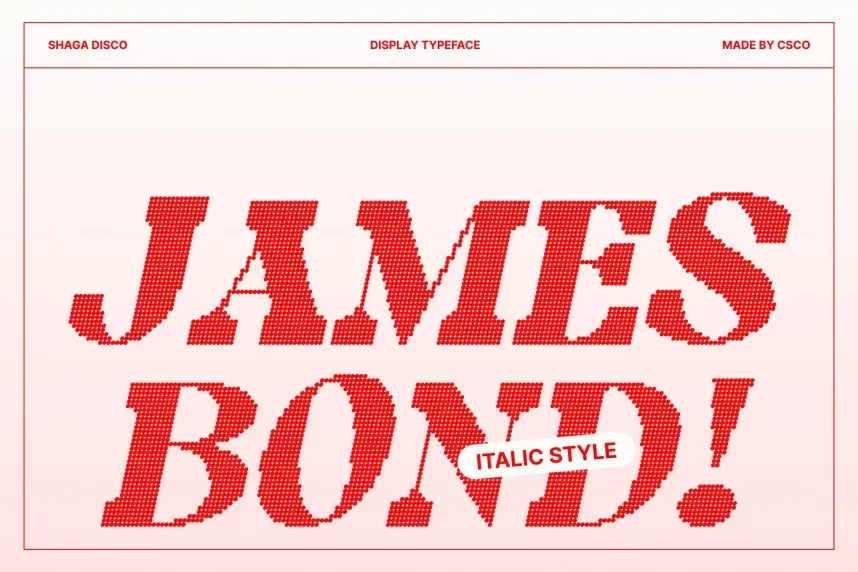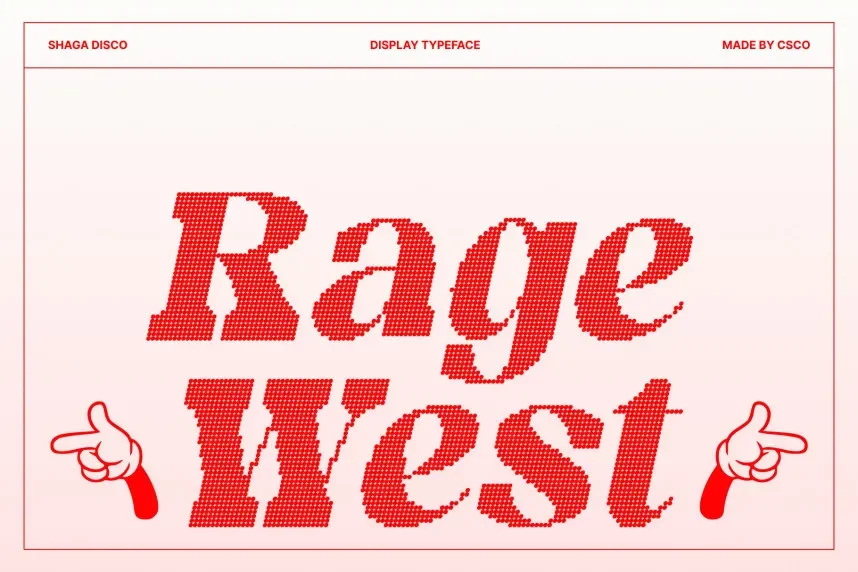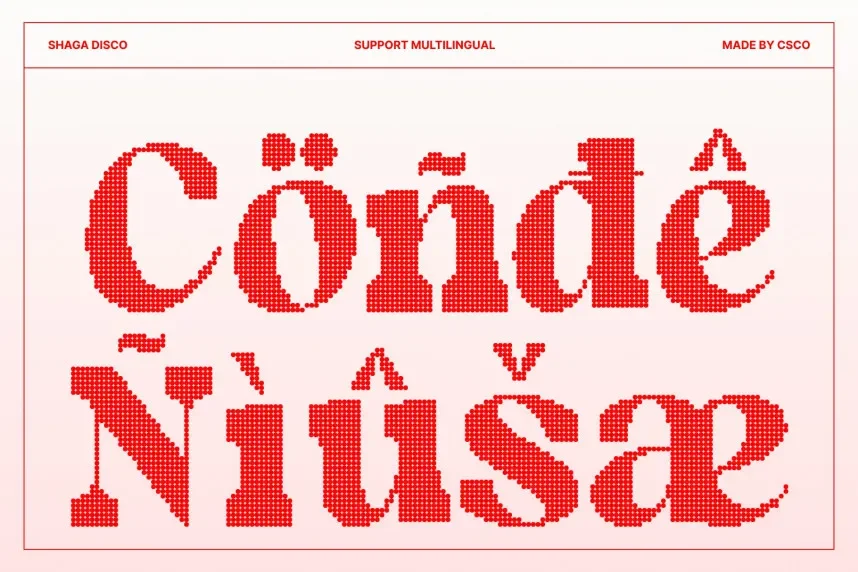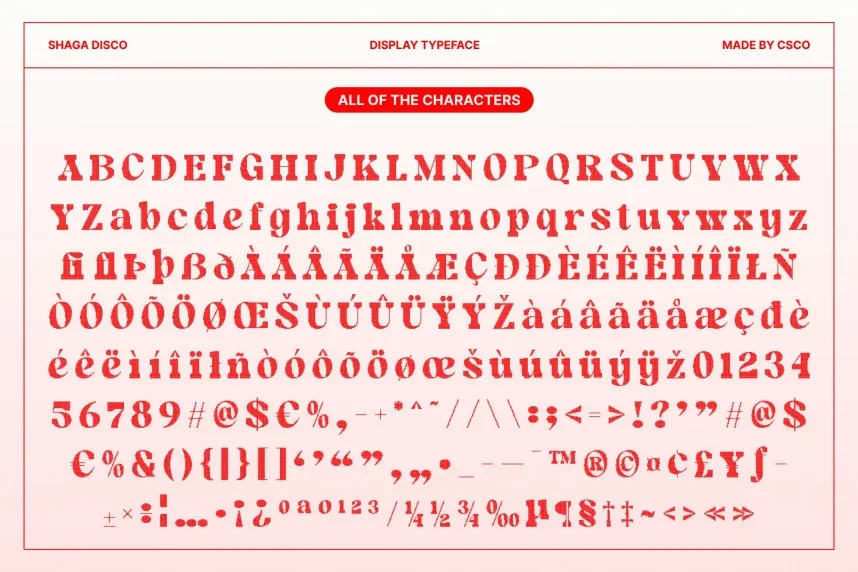
Shaga Disco Font supports bold, playful typography while maintaining basic readability. Decorative disco fonts often struggle in mixed-content layouts.
Shaga Disco is a display font with rounded forms, thick strokes, and rhythmic letter construction. The font works best in short text and headline applications.